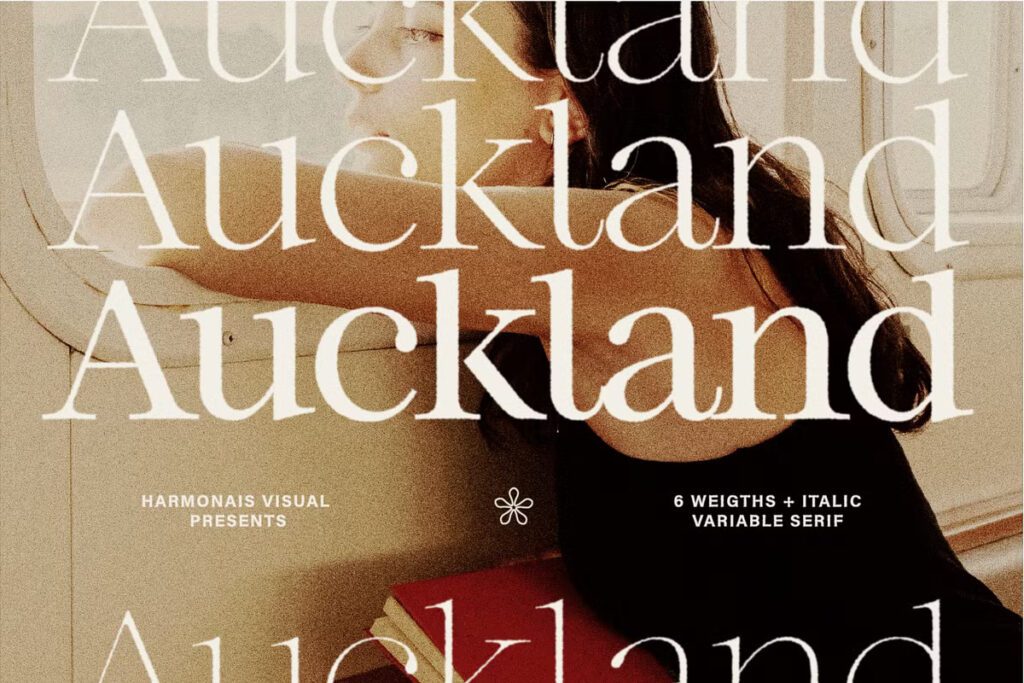
Auckland Variable Serif: A Versatile Serif for Every Design Project
If you’re looking to add a touch of timeless elegance to your design projects, the Auckland Variable Serif font is an excellent choice. With beautifully crafted curves and intricate details, this font is designed to enhance everything from display headings to web designs and social media posts. Auckland Variable Serif is the perfect blend of sophistication and versatility, making it an essential addition to your font collection.
What Makes Auckland Variable Serif Unique?
1. Timeless Elegance for Modern DesignsThe Auckland Variable Serif exudes a classic charm that never goes out of style. Its refined, fancy curves add a sense of sophistication and uniqueness, ensuring your designs always stand out.
2. Perfect for All PlatformsWhether you need a font for a branding project, website design, or eye-catching social media content, Auckland effortlessly adapts to various formats. Its flexibility makes it the ideal choice for both digital and print designs.
3. Multiple Font Weights and StylesAuckland Variable Serif comes in a variety of weights and styles, from Thin to Black, with italic versions of each, providing designers with numerous creative possibilities. Additionally, the font includes variable font files, making it adaptable to any design need.
Ideal for European and Vietnamese Languages
Auckland supports a wide range of European languages as well as Vietnamese, making it a great choice for global projects.
Why Auckland Variable Serif is a Must-Have
Versatility: Whether you need a font for a minimalist design or something bold and impactful, Auckland Variable Serif has the right weight and style for the job.
Elegant Ligatures: The font includes a vast selection of ligatures and alternate characters, providing extra creative flexibility.
Perfect for Premium Projects: With its sophisticated and modern appearance, Auckland is perfect for luxury branding, editorial layouts, and web designs that demand attention.
Elevate Your Design Projects with Auckland Variable Serif
Bring timeless elegance and versatility to your next design project with Auckland Variable Serif. This font offers everything you need to make your creations stand out, from intricate ligatures to a wide range of weights and styles.